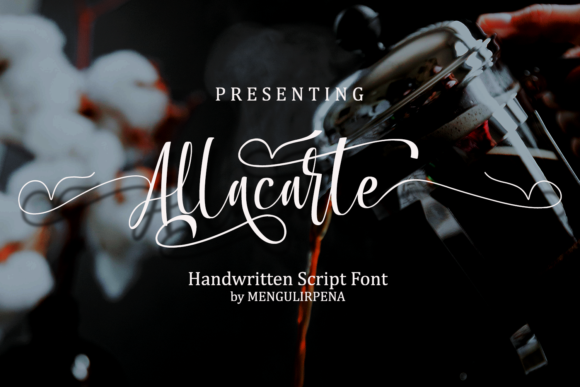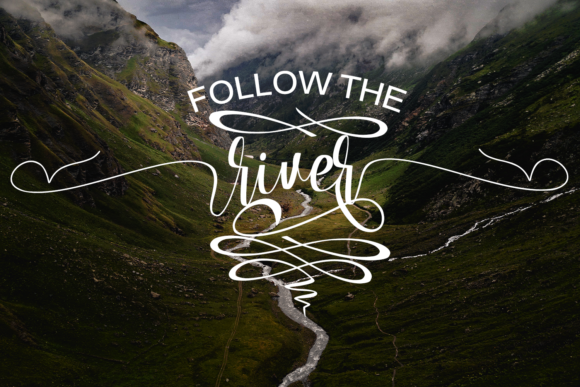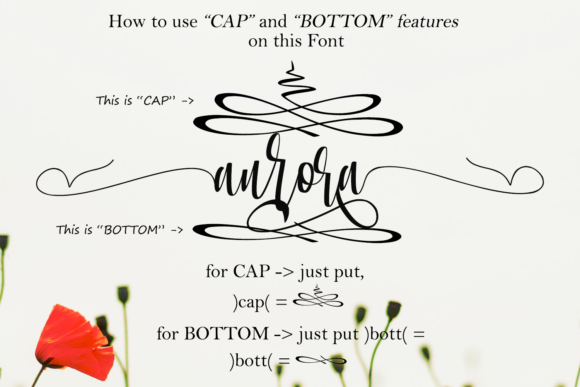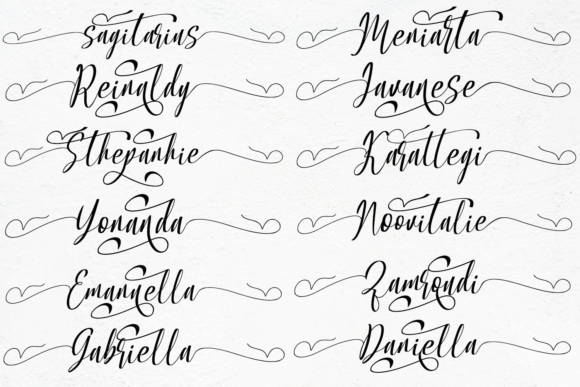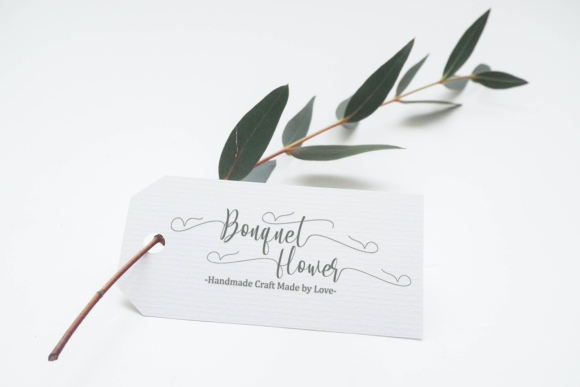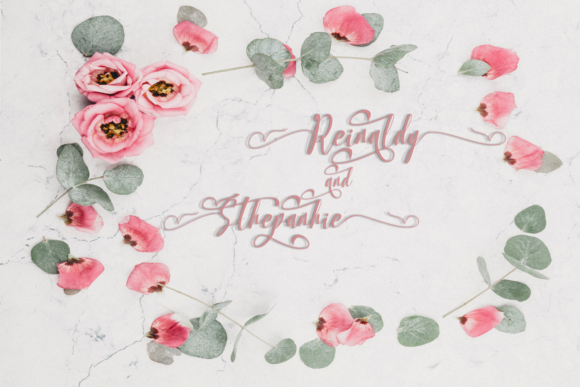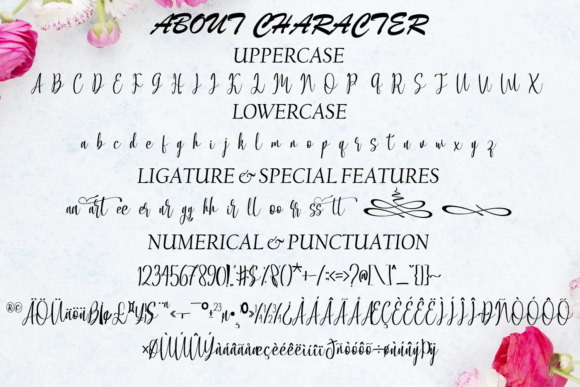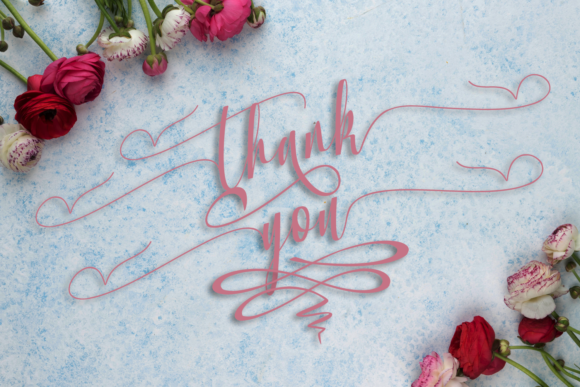
Allacarte Font
About Allacarte Font
Allacarte feels equally charming and elegant. It looks stunning on wedding invitations, thank you cards, quotes, greeting cards, logos, business cards and every other design which needs a handwritten touch.